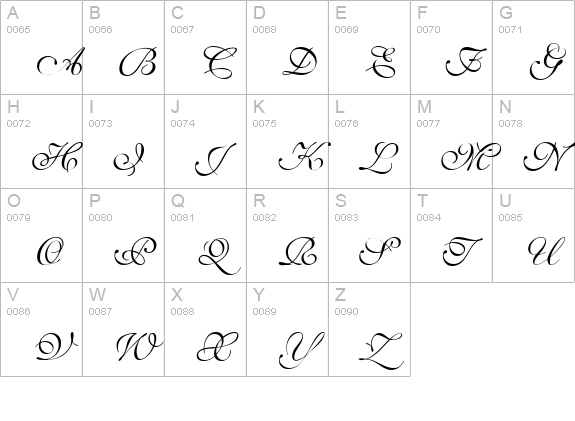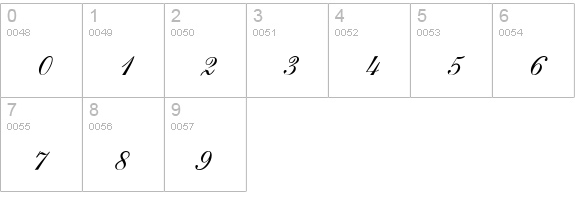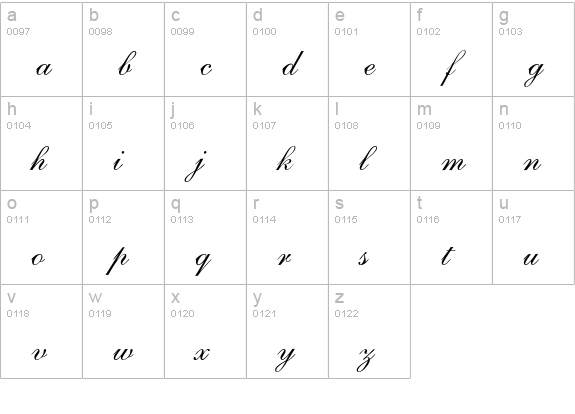
S721-Script-Three-Regular is the standard, neutral variant in the S721 typeface family \xE2\x80\x94 well suited to general body text, paragraphs, and standard typographic work.
S721-Script-Three-Regular is a beautifully crafted font that exudes elegance and sophistication. With its flowing script style and delicate curves, this font is perfect for adding a touch of charm to any design project. Whether you're working on invitations, branding, or packaging, S721-Script-Three-Regular will elevate your work to the next level. The best part about this font is that it is completely free to download at FontsMarket.com. Yes, you read that right - you can get your hands on this stunning font without spending a dime. Don't miss out on the opportunity to enhance your projects with the timeless beauty of S721-Script-Three-Regular. Download it today and let your creativity soar!